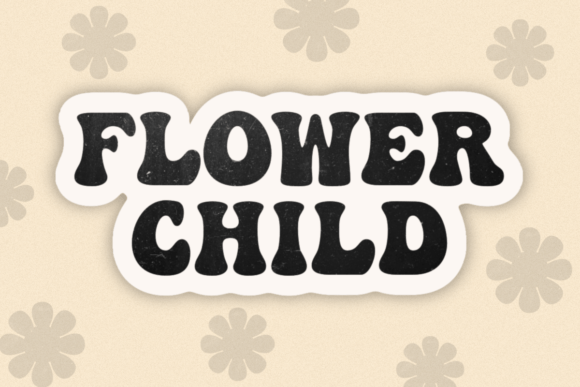
Introducing Flower Child Font, the grooviest addition to your font collection! Created by AlexisCreative, this display font is perfect for those looking to add a touch of fun to their designs. Flower Child Font is more than just a font; it's an experience that will take your designs to the next level.
With its playful and eye-catching design, Flower Child Font is ideal for any project that needs to stand out. Whether you're creating invitations, posters, or social media graphics, this font will give your designs a unique and memorable look. The flowy, hand-drawn letters evoke a sense of nostalgia and freedom, perfect for anything related to the '60s or '70s.
Flower Child Font is not just about looks; it also has functionality. The font family has a variety of weights and styles, making it versatile and adaptable to any project. You can use it for headlines, titles, and even body text. The possibilities are endless!
But what makes Flower Child Font truly special is the emotion it evokes. This font brings joy and happiness to any design it's a part of. It's like a breath of fresh air that awakens your creativity and helps you think outside the box. The playful and carefree vibe of Flower Child Font will make your designs more relatable and approachable, helping you connect with your audience on a deeper level.